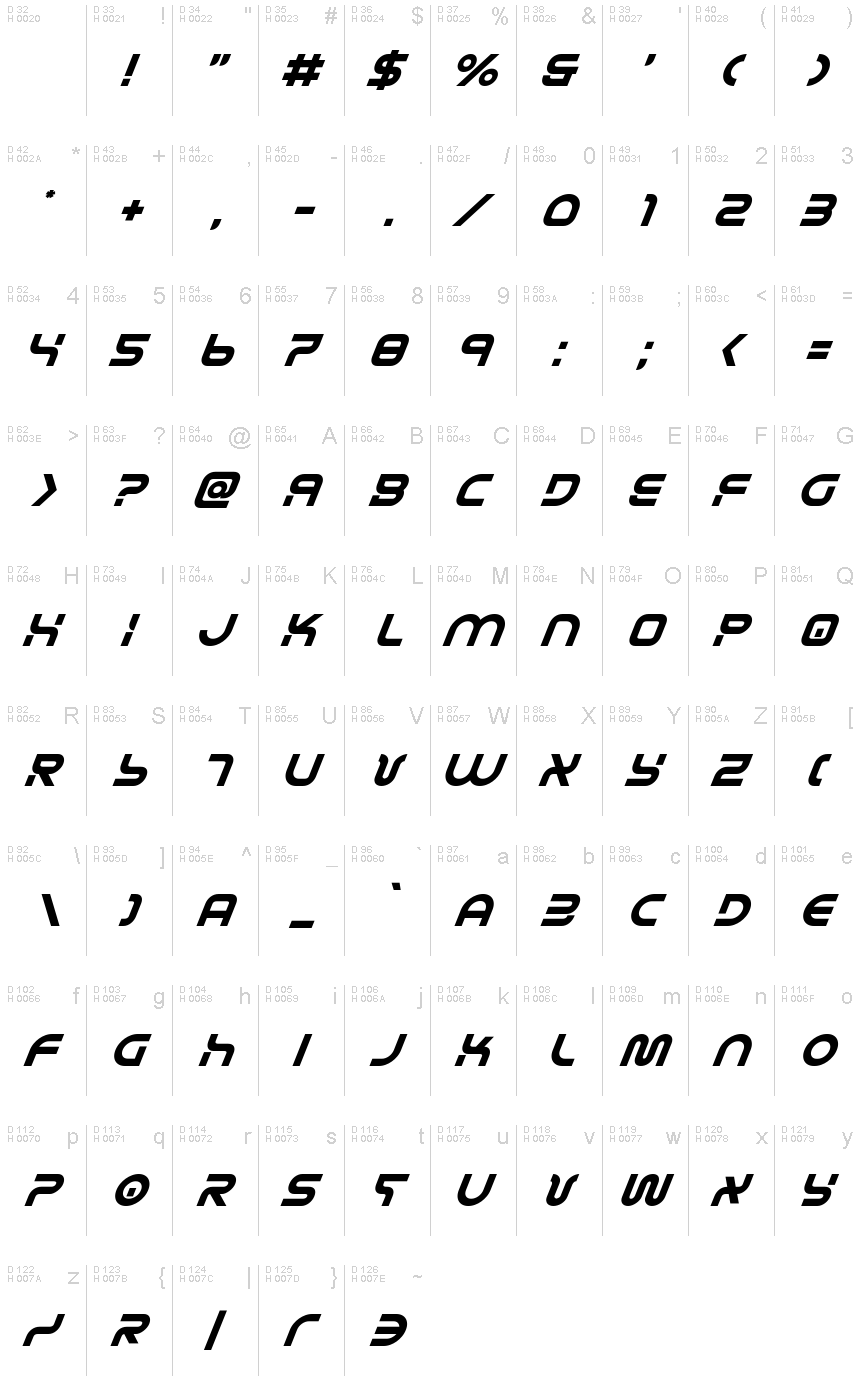
Yukon Tech Italic
Yukon Tech Italic stands out as a font that encapsulates the essence of modernity with its futuristic style, crafted by the talented Daniel Zadorozny. Belonging to the Yukon Tech family, this display typeface boasts a semi-bold weight and an expanded width that gives it a commanding presence on any canvas.
The sleek, forward-leaning characters of Yukon Tech Italic suggest motion and progress, making it an ideal choice for projects that aim to convey innovation and cutting-edge technology. Its aesthetic appeal is undeniable, with clean lines and well-proportioned letterforms that exude sophistication and professionalism.
This font's versatility allows it to adapt seamlessly across various creative contexts, from tech startup branding to event promotions or digital platforms seeking a contemporary vibe. The semi-bold weight ensures excellent readability while retaining visual impact, especially when used for headings or standout statements.
Embrace Yukon Tech Italic for your next project to infuse your designs with a sense of advancement and high-tech elegance.
The sleek, forward-leaning characters of Yukon Tech Italic suggest motion and progress, making it an ideal choice for projects that aim to convey innovation and cutting-edge technology. Its aesthetic appeal is undeniable, with clean lines and well-proportioned letterforms that exude sophistication and professionalism.
This font's versatility allows it to adapt seamlessly across various creative contexts, from tech startup branding to event promotions or digital platforms seeking a contemporary vibe. The semi-bold weight ensures excellent readability while retaining visual impact, especially when used for headings or standout statements.
Embrace Yukon Tech Italic for your next project to infuse your designs with a sense of advancement and high-tech elegance.